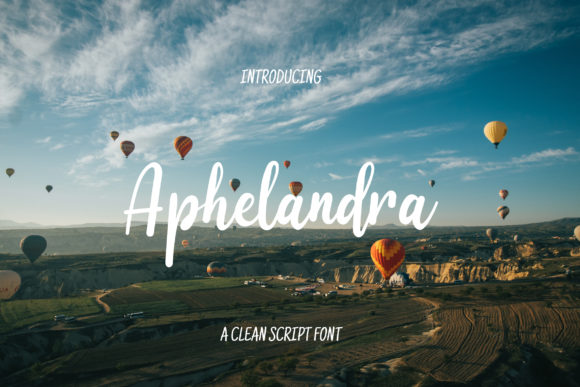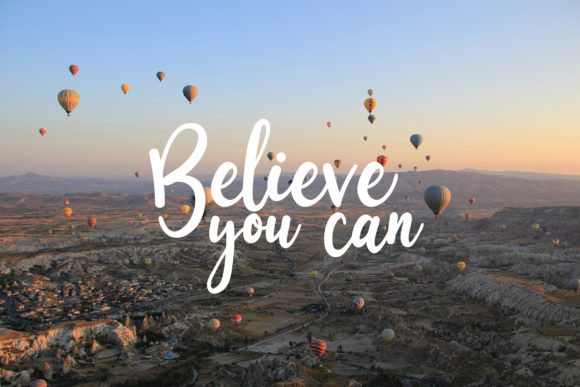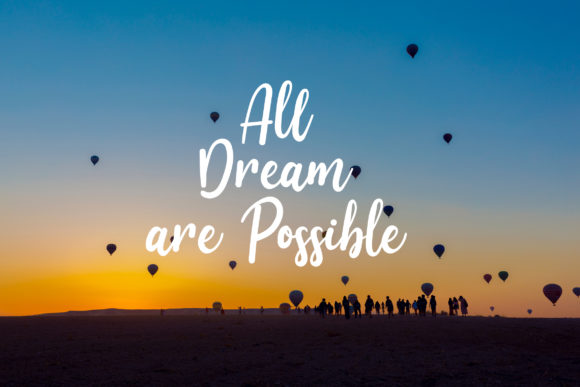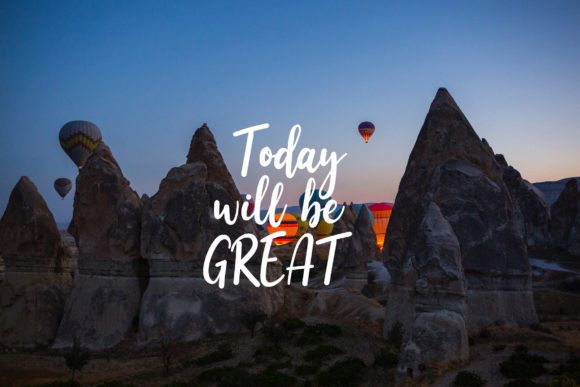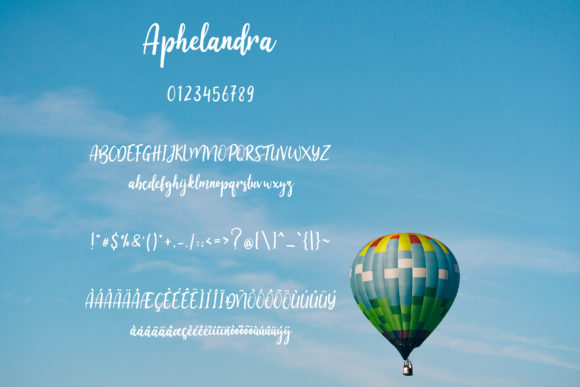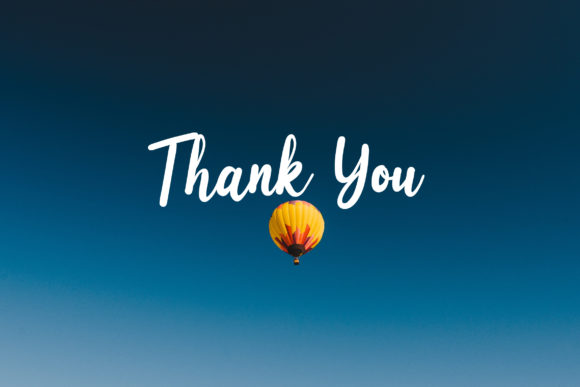
Aphelandra Font
About Aphelandra Font
Aphelandra is crafted with love. It’s designed to work perfectly in multiple designs like weddings invitations, greeting cards, and much more!